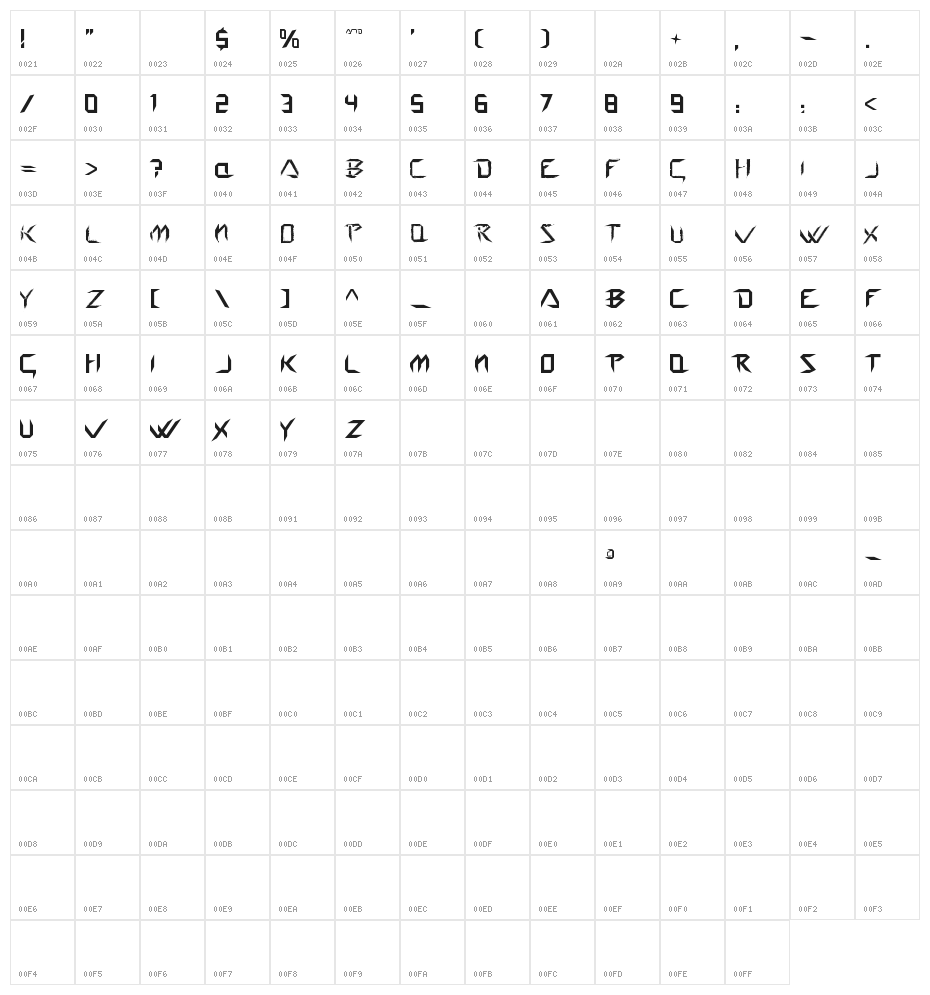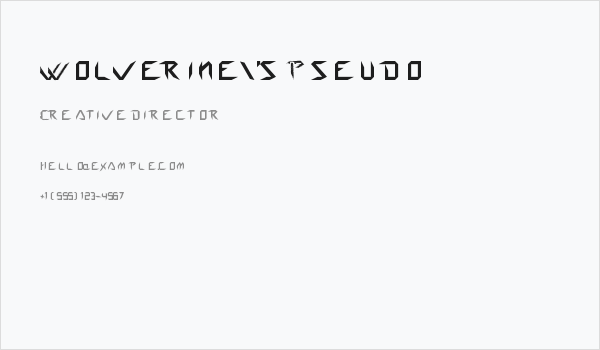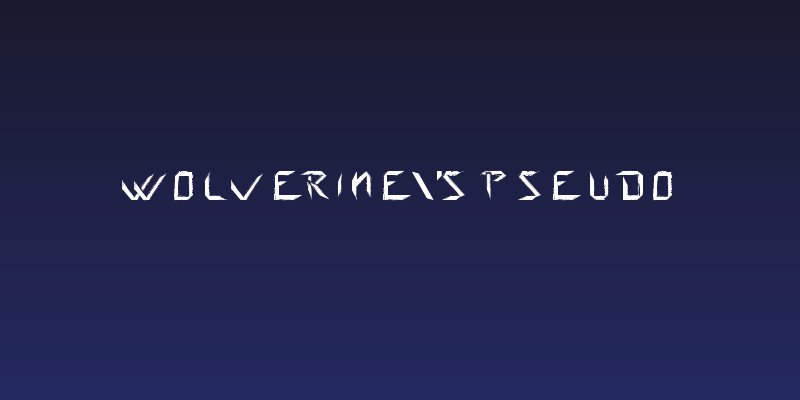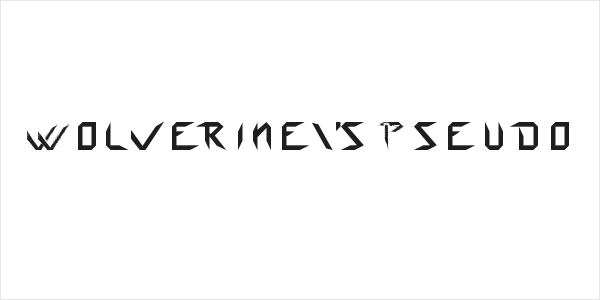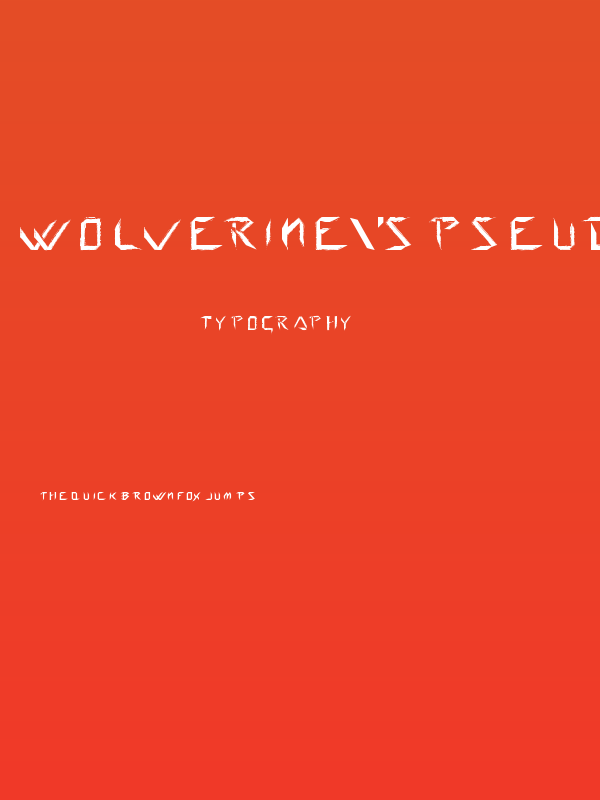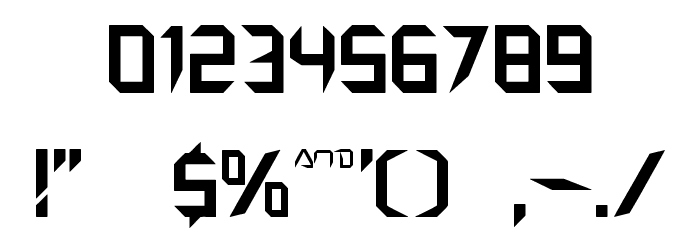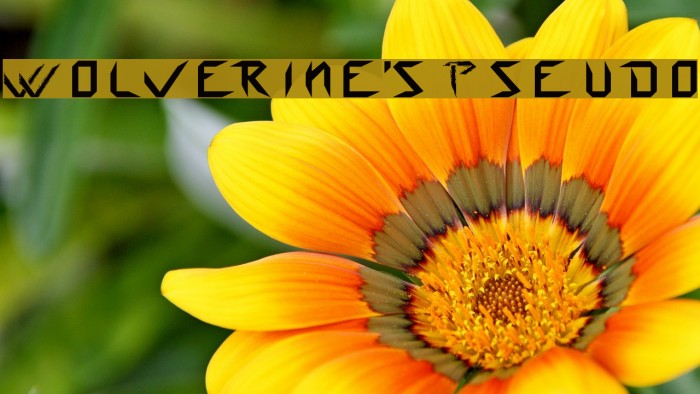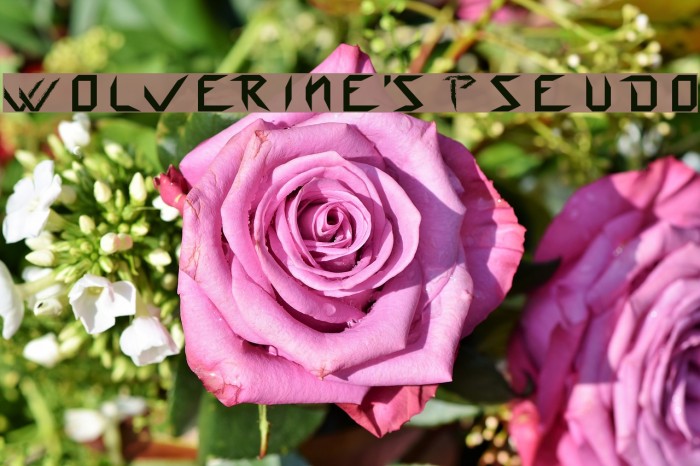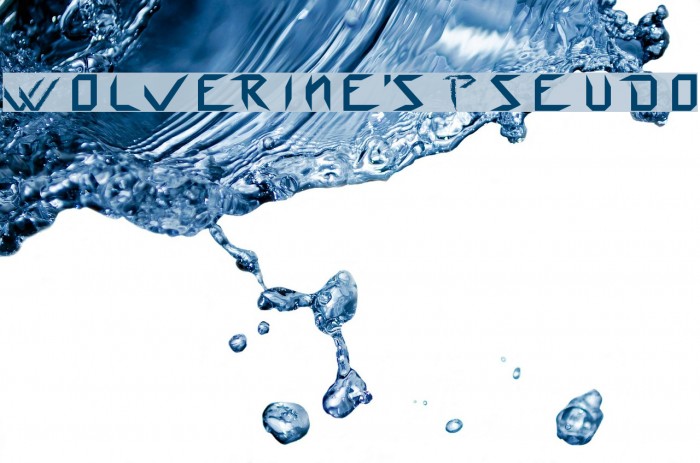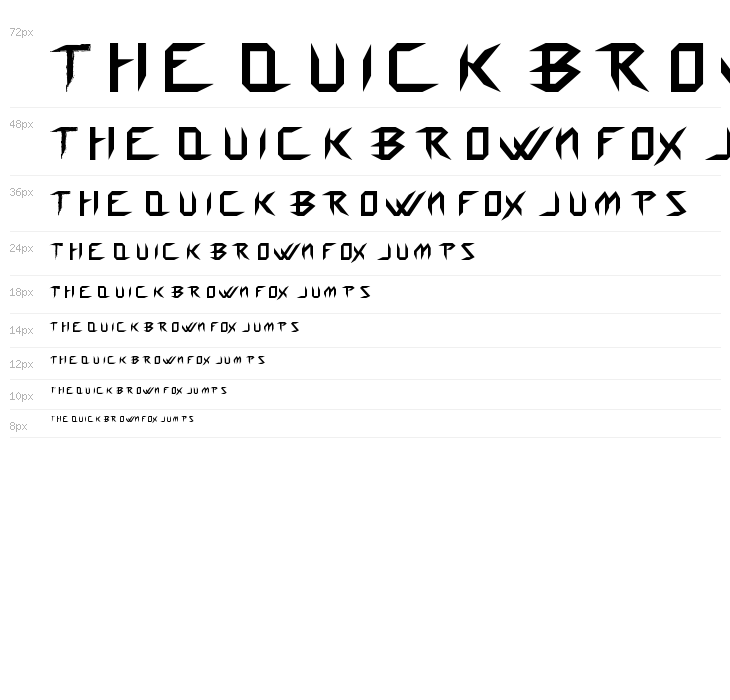
Wolverine's Pseudo Font
Wolverine's Pseudo Description
This font features a bold and aggressive design, characterized by sharp, angular edges and a distressed texture that gives it a rugged, dynamic appearance. The uppercase letters are particularly striking, with each character exhibiting a unique blend of geometric precision and rough, hand-drawn elements. The numbers and special characters maintain this aesthetic, ensuring a cohesive look across all glyphs. The font's style is reminiscent of a futuristic or dystopian theme, making it ideal for projects that require a strong visual impact.
| Overall Style | Modern, Futuristic |
| Proposed Projects | Ideal for video game titles, movie posters, branding for extreme sports, or any project requiring a bold, edgy look. |